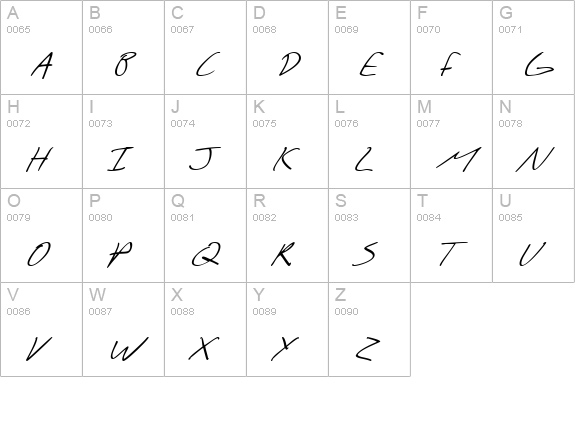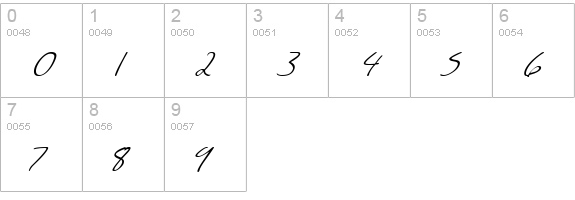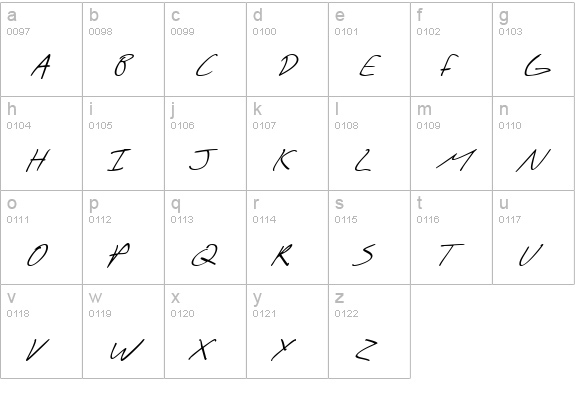
SF Scribbled Sans SC Italic Font Details
SF Scribbled Sans SC Italic is a distinctive, italic variant in the SF typeface family \xE2\x80\x94 well suited to design and typography projects.
SF Scribbled Sans SC Italic font is a playful and quirky typeface that adds a touch of creativity to any design project. With its unique handwritten style, this font brings a sense of fun and spontaneity to your text. The italicized version of SF Scribbled Sans SC adds a dynamic flair, giving your words a sense of movement and energy. This font is perfect for a variety of design applications, including posters, social media graphics, logos, and more. Whether you're working on a children's book, a party invitation, or a whimsical branding project, SF Scribbled Sans SC Italic font is sure to stand out and capture attention. One of the best things about SF Scribbled Sans SC Italic font is that it is free to download. You can easily access this font at FontsMarket.com, where it is available for instant download. This means you can start using it in your designs right away, without having to worry about any additional costs. With its freely available download, SF Scribbled Sans SC Italic font offers a fantastic value for designers and creatives looking to add a touch of playfulness and originality to their work. So why wait? Download SF Scribbled Sans SC Italic font today and let your imagination run wild!